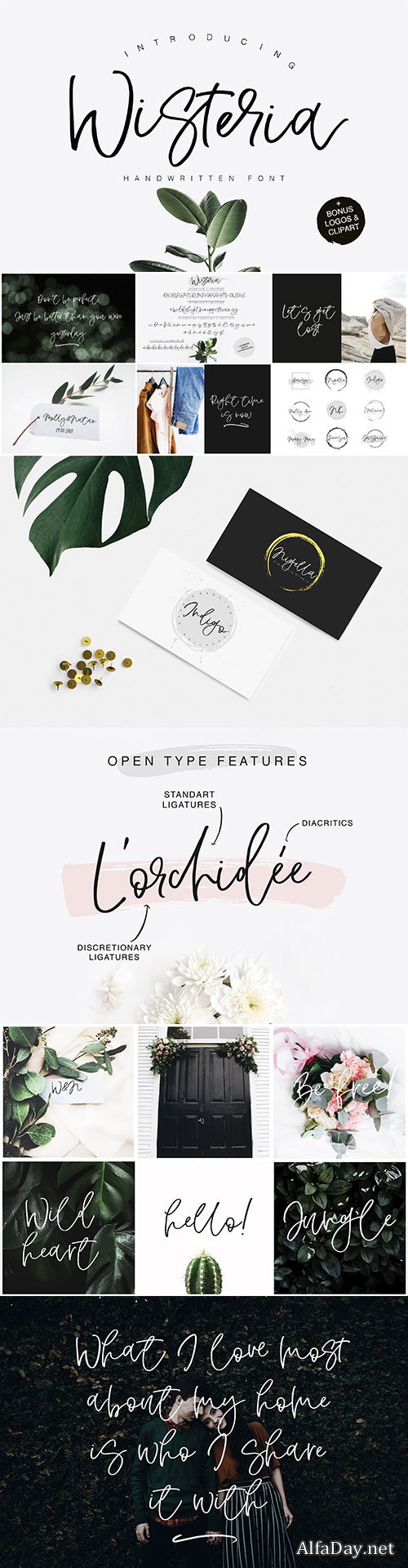
CM - Wisteria Script 1958373
It's hand-drawn signature font with dancing baseline and elegant lines. This fresh font will look awesome on your branding materials, wedding invitations, headings, greeting cards and any other amazing projects you are working on.